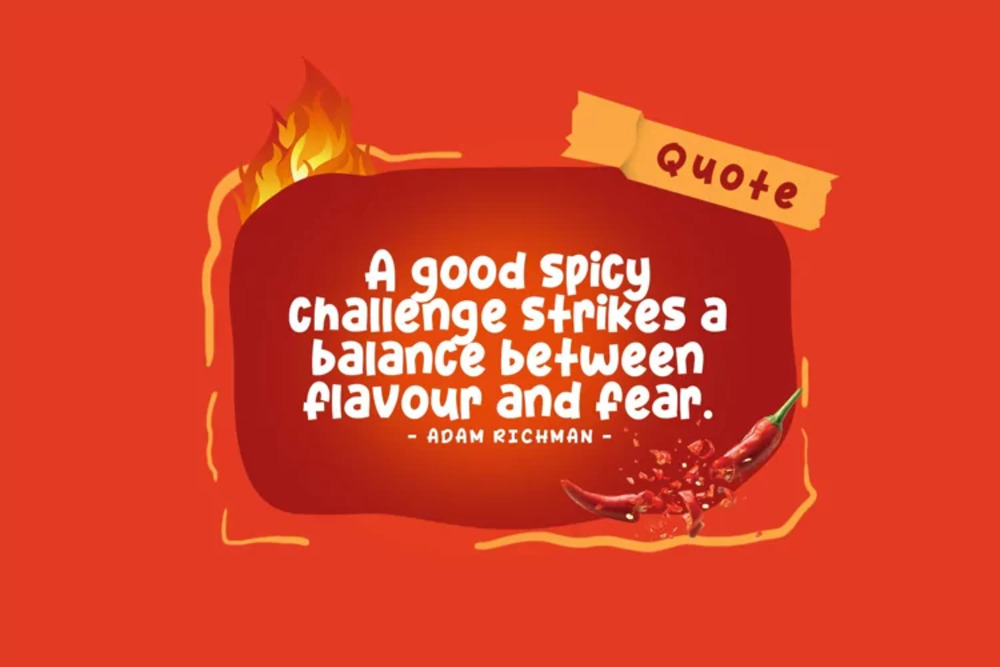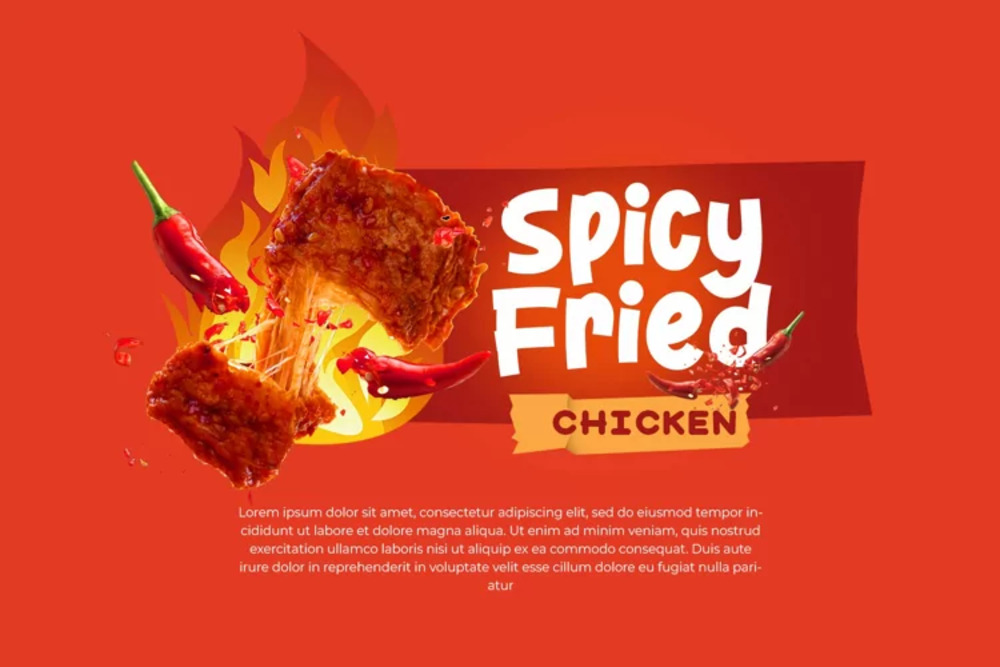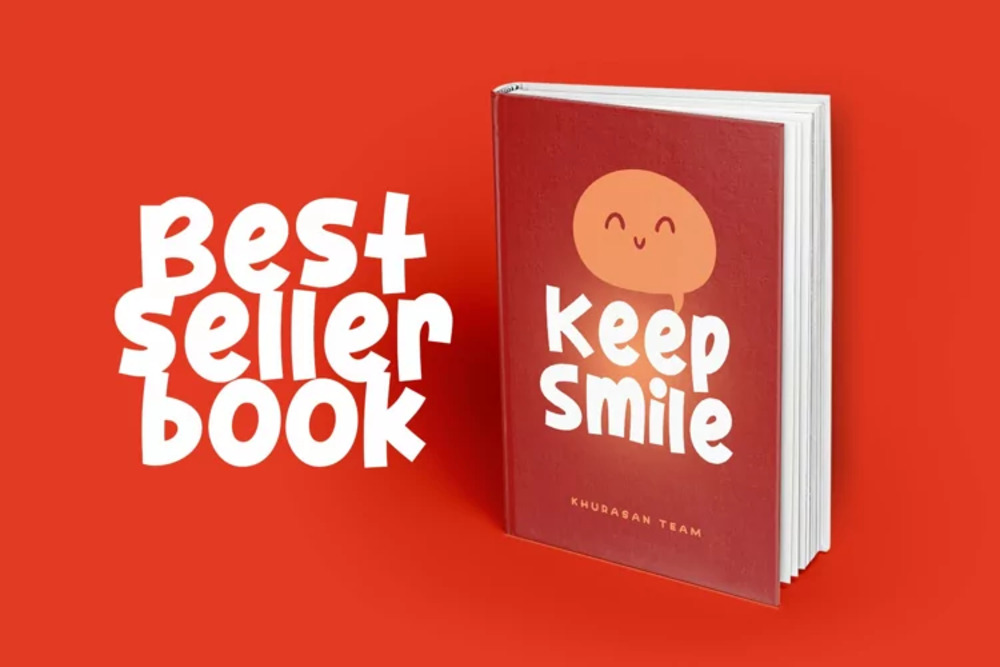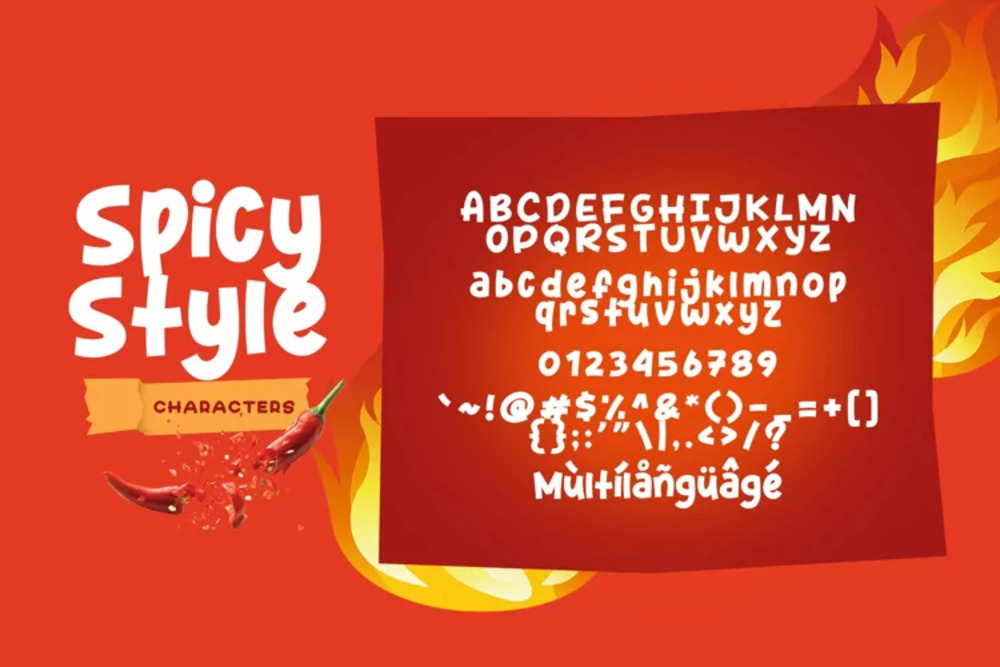
Spicy Style Font
Spicy Style is a bold and flavorful display font with a retro-inspired, slightly distressed design. Its chunky, rounded letterforms evoke a sense of vintage signage and classic typography, perfect for food branding, restaurant logos, and packaging. Spicy Style adds a touch of nostalgic charm and playful energy to any project, while remaining legible and versatile. It’s ideal for designs that aim for a bold and memorable statement, from hot sauce labels to diner menus.